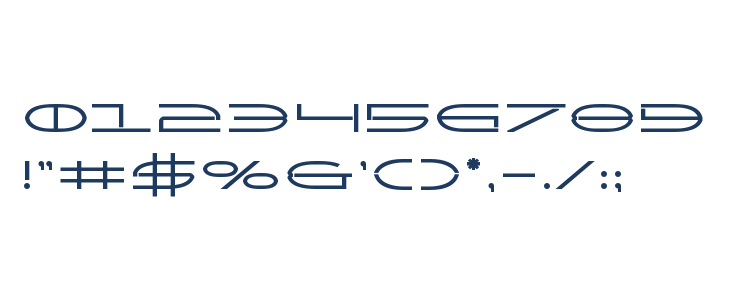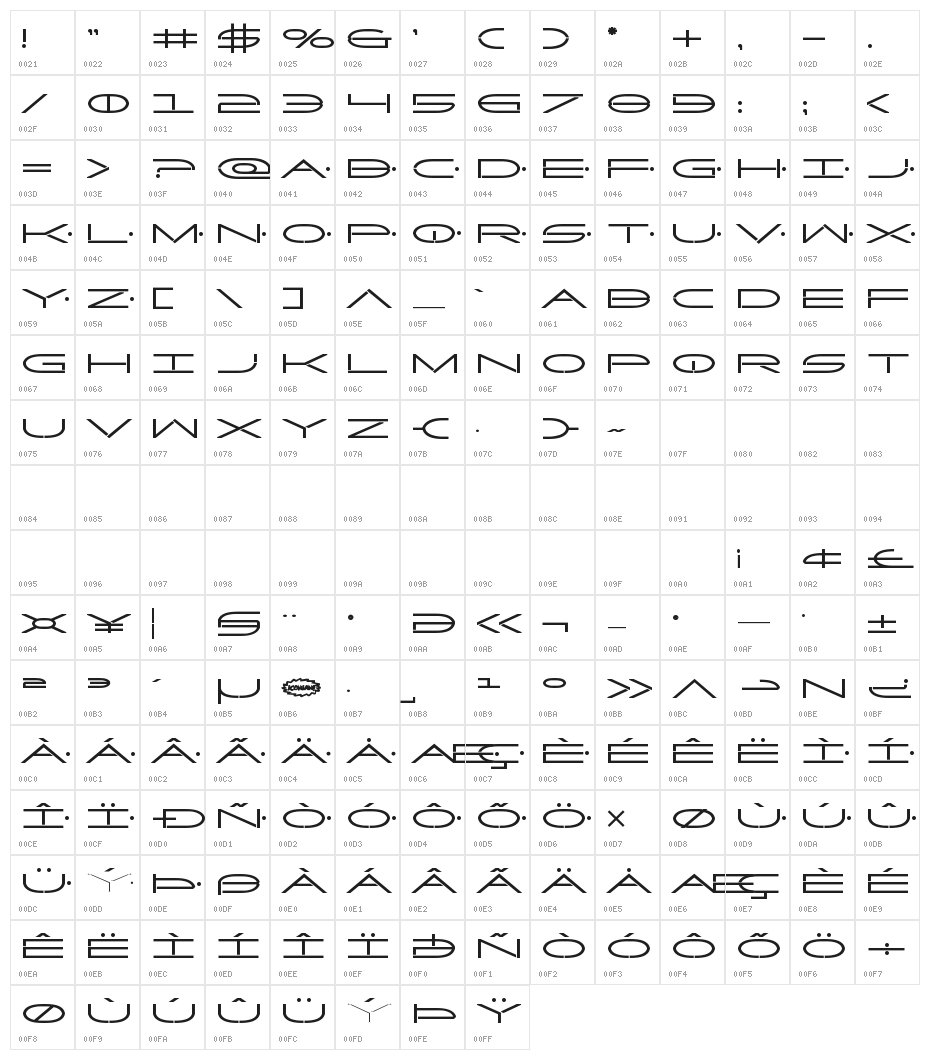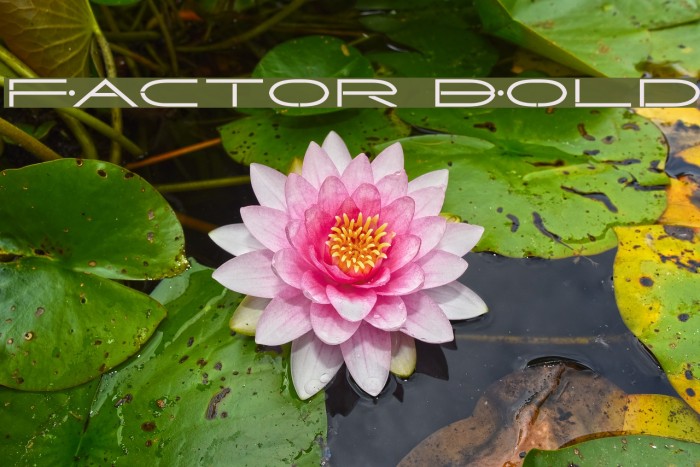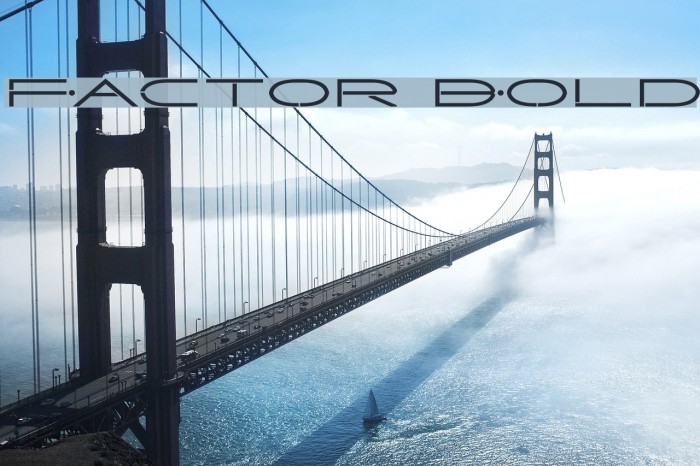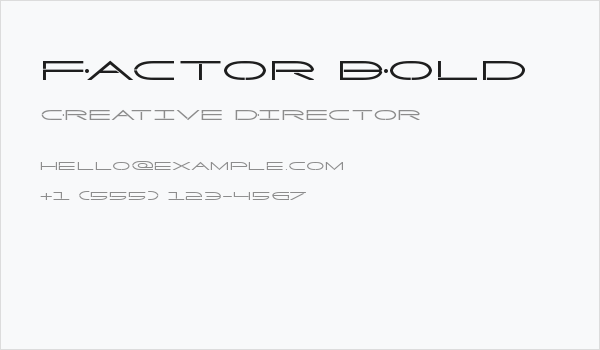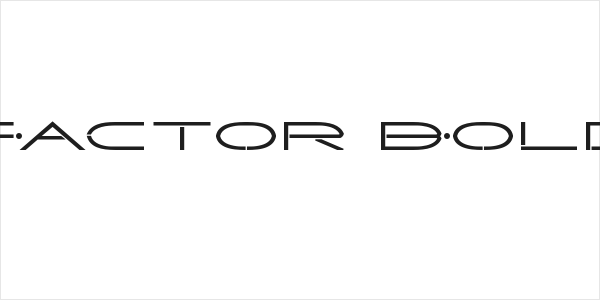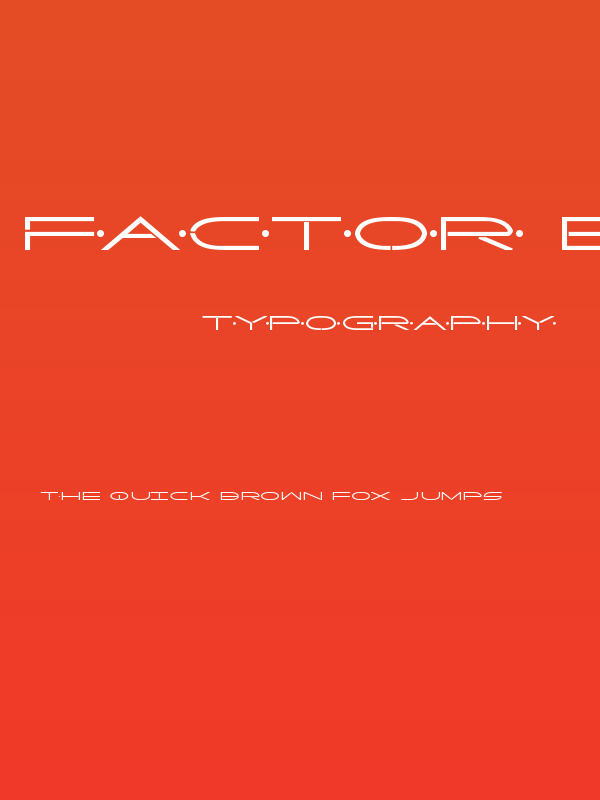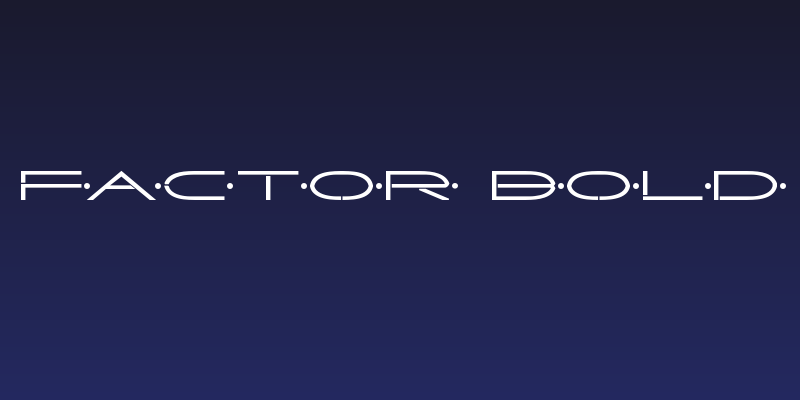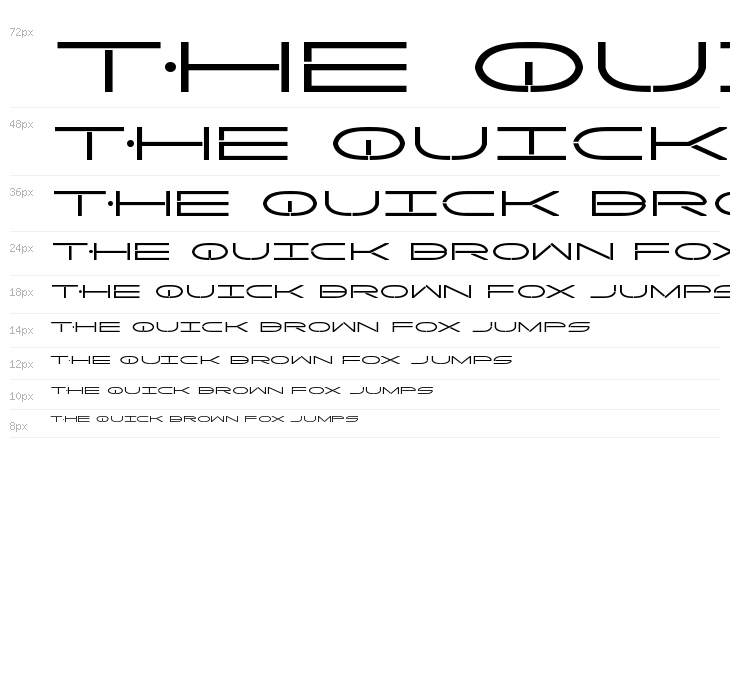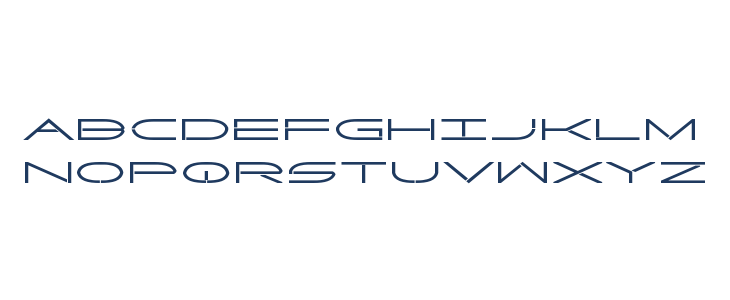
Factor Bold Font
Factor Bold Description
This font features a futuristic and geometric design with a distinct, clean appearance. The characters are constructed with a combination of straight lines and curves, creating a unique and modern look. The uppercase letters are particularly striking, with some characters incorporating circular elements that add to the font's futuristic feel. The numerals and special characters maintain this cohesive design, ensuring versatility across various applications. The font's structure is both bold and elegant, making it suitable for projects that require a modern and innovative touch.
| Use Case | Logos, Headlines, Posters |
| Proposed Projects | Ideal for technology branding, sci-fi posters, modern logos, and digital interfaces. |